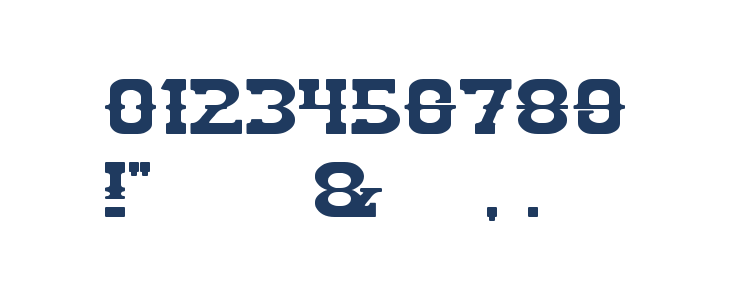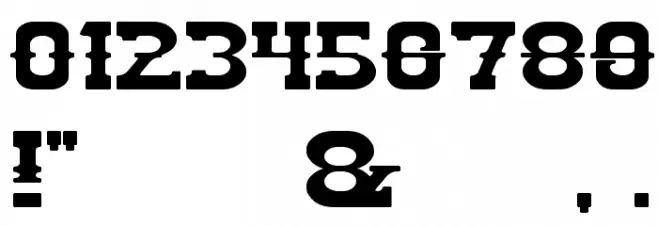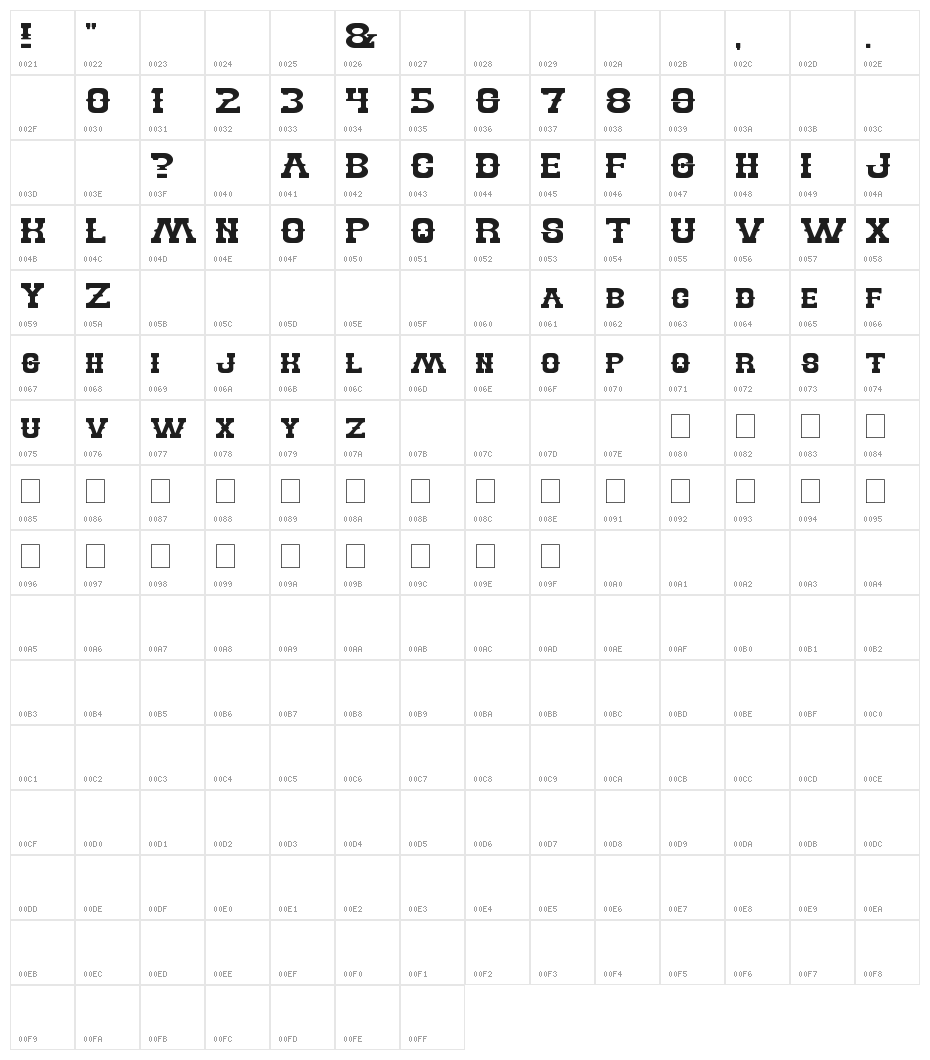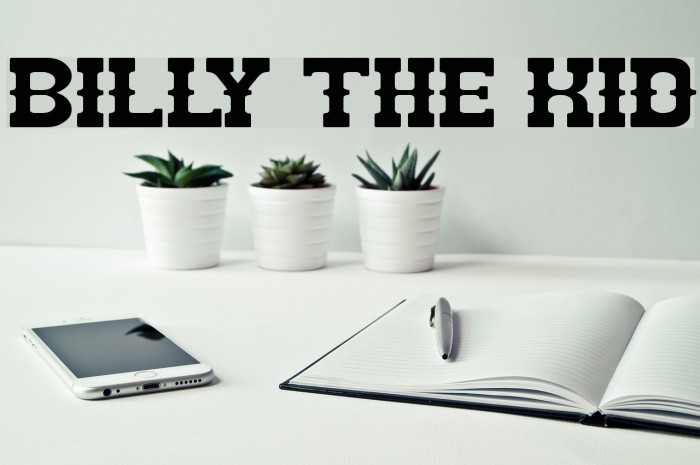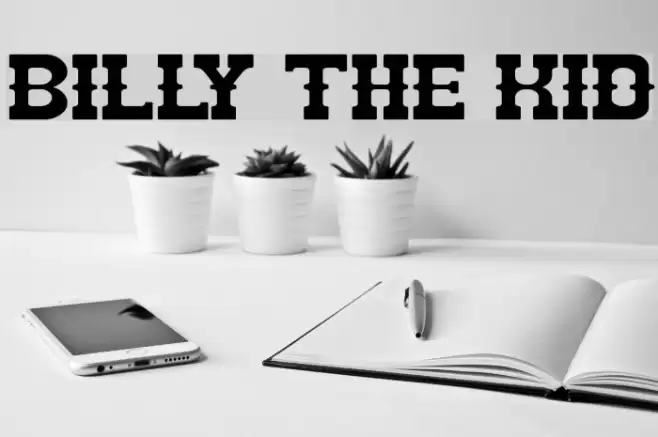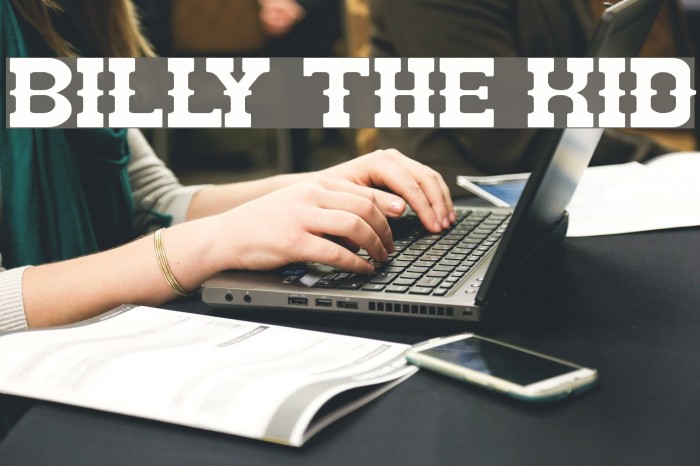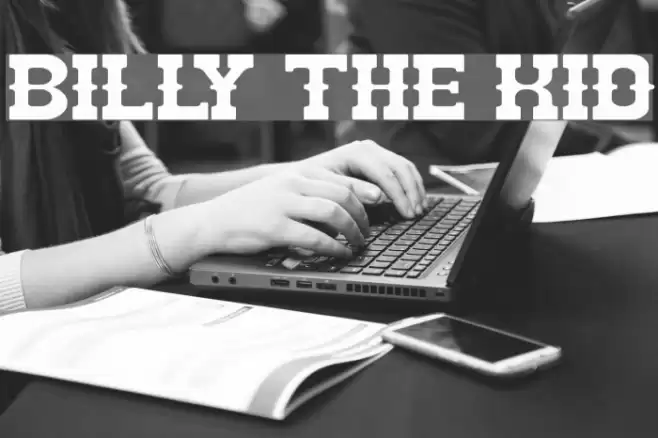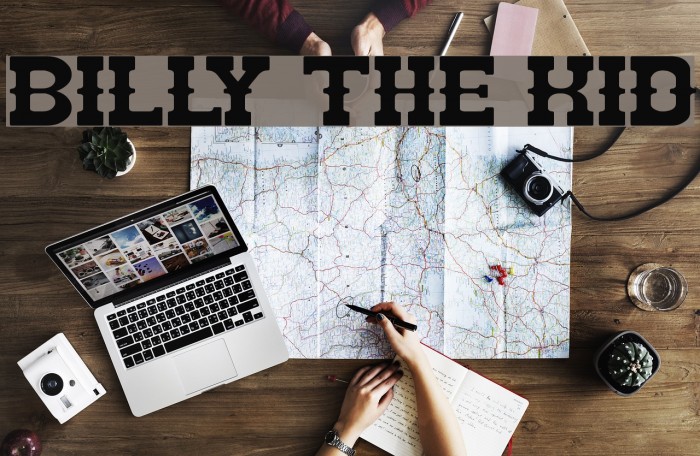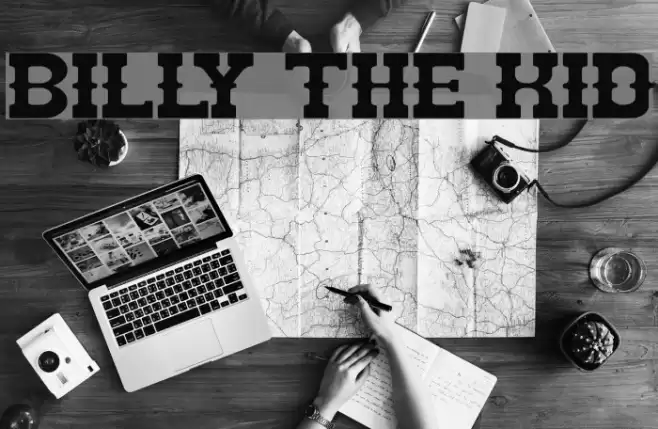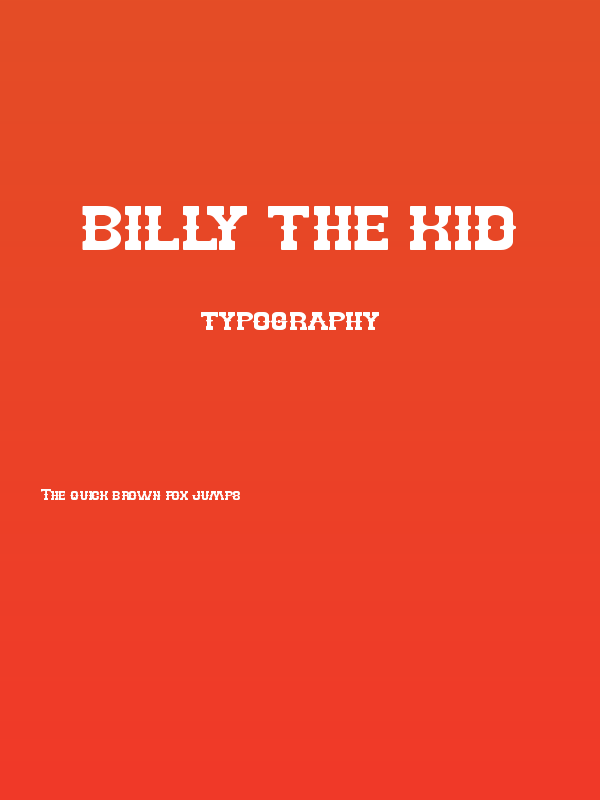
BILLY THE KID Font
BILLY THE KID Description
This font features a bold, slab serif style with strong, block-like characters. The letters have a distinct Western or vintage feel, reminiscent of old wanted posters or saloon signs. Each character is robust with thick strokes and minimal contrast, giving it a sturdy and impactful appearance. The serifs are prominent and squared, adding to the overall rugged aesthetic. The numbers and special characters maintain the same boldness and style, ensuring consistency across all glyphs. This font is ideal for designs that require a strong, attention-grabbing typeface with a touch of nostalgia.
Overall StyleVintage
Proposed ProjectsIdeal for posters, logos, branding, and any design requiring a vintage or Western theme.